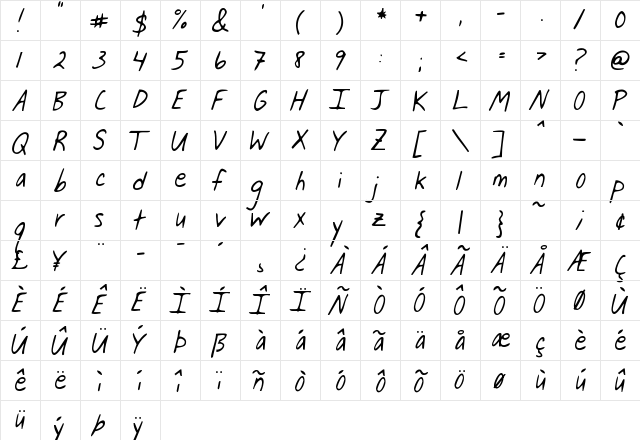
Jar of Hearts Regular
| Foundry | Kimberly Geswein |
| Designer | Kimberly Geswein |
Design Context for Jar of Hearts Typeface
Jar of Hearts is a composed and adaptable typeface that performs quietly and consistently across a wide range of design contexts.